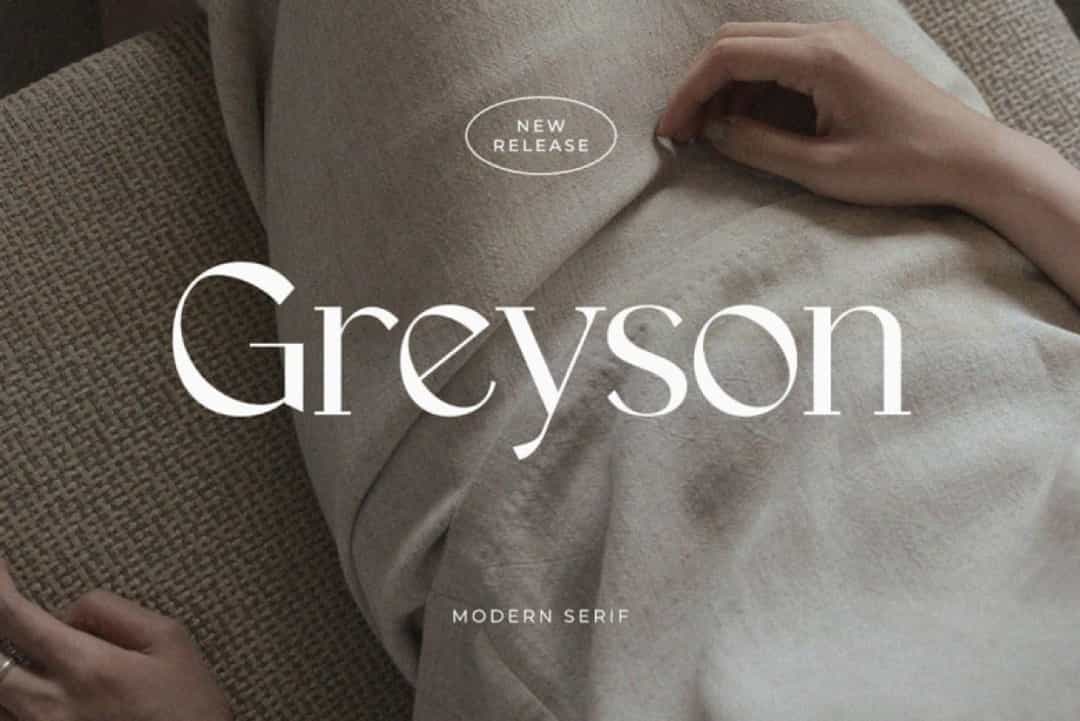
Greyson Serif is an elegant and sophisticated font designed with both lowercase numerals and letters as well as various punctuation, featuring multilingual compatibility. Featuring elegant lines that ooze class, its modern classical aesthetic makes this font suitable for posters, branding projects, web designs, logos, illustrations badges headlines initiation ceremonies or many other uses.